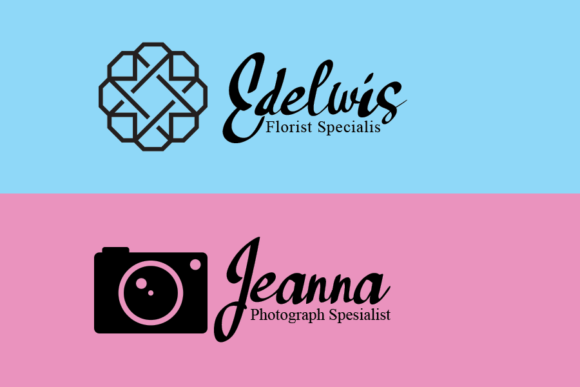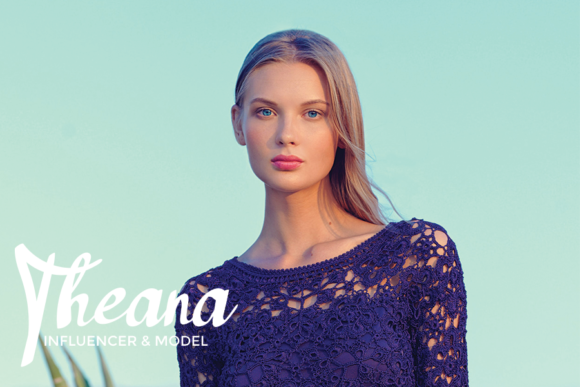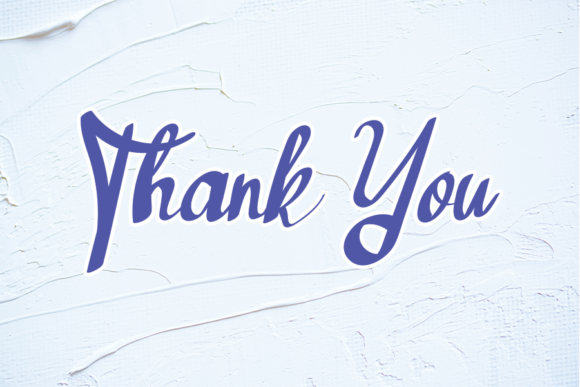
About Big Bamboo Font
Big Bamboo is a lovely and timeless handwritten font. It is the best choice for creating eye catching logos, branding and quotes. Every letter has a unique and beautiful touch, which will make your design come alive!